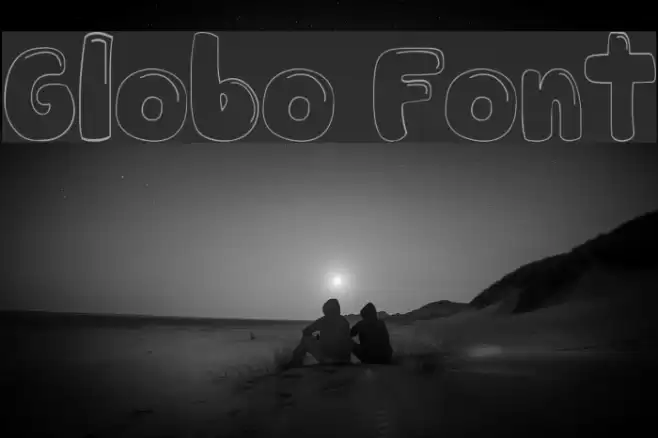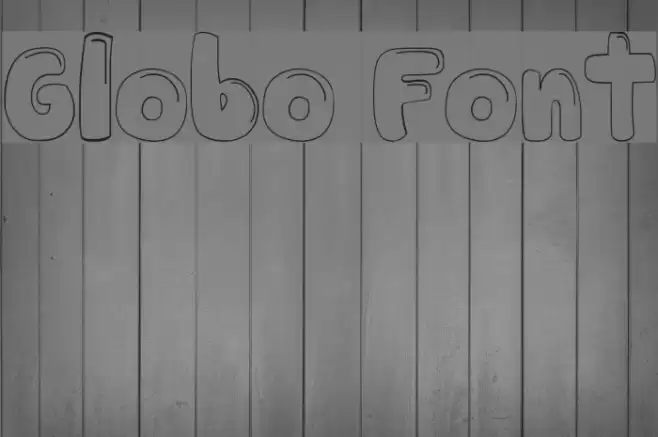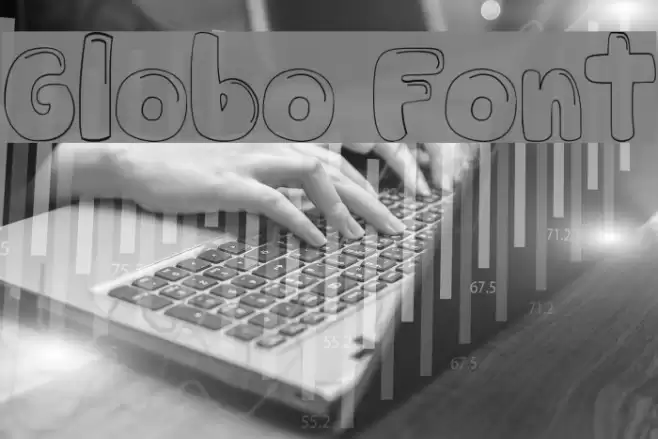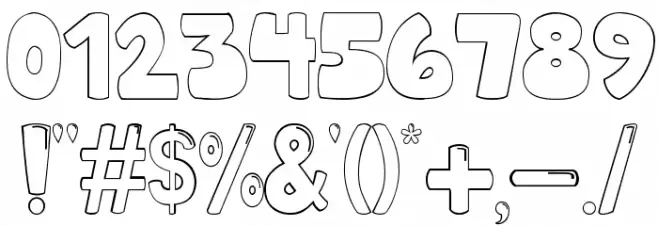
Globo Font
Globo Description
This playful and bold font features a bubble-like, rounded style with a whimsical touch. The characters are outlined, giving them a three-dimensional appearance that adds depth and interest. The uppercase and lowercase letters maintain a consistent, friendly shape, making them highly legible while still retaining a fun, informal vibe. Numbers and special characters follow the same design principles, ensuring a cohesive look across all elements. The font's unique style makes it ideal for projects that require a lighthearted and approachable aesthetic.
A playful, bubble-like font with outlined characters and a whimsical touch from Uncategorized fonts.
- Proposed Projects: Perfect for children's books, playful branding, party invitations, and creative posters.
- Overall Style: Playful, Whimsical